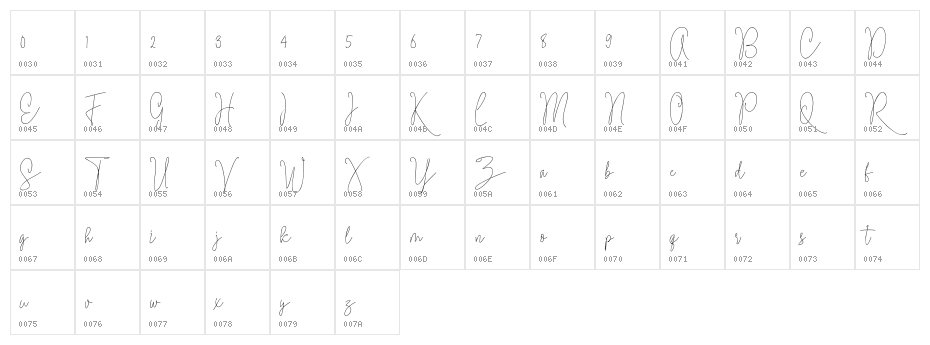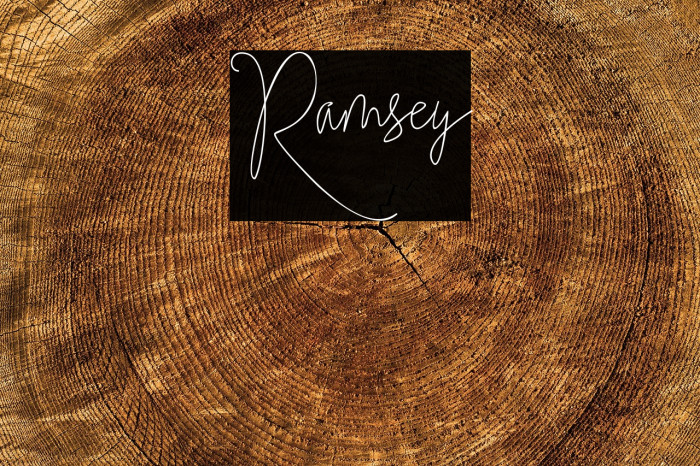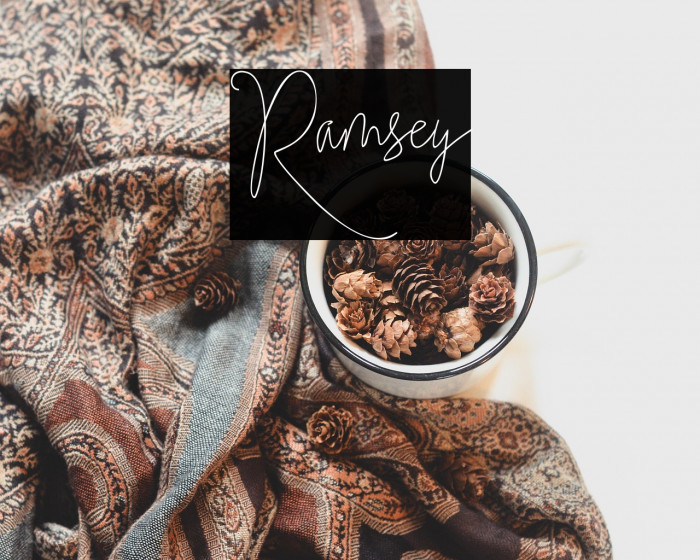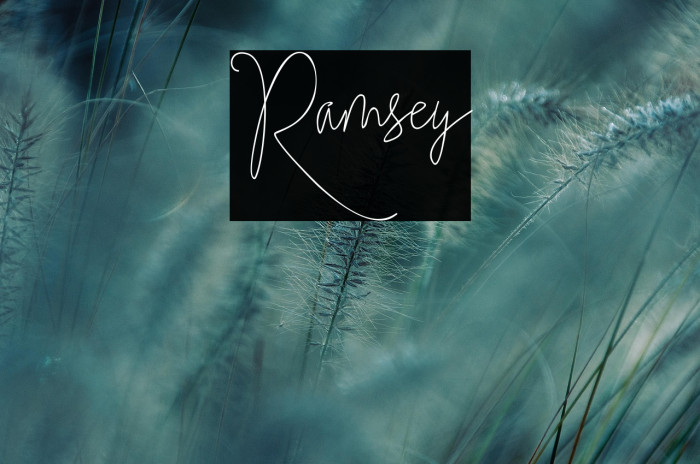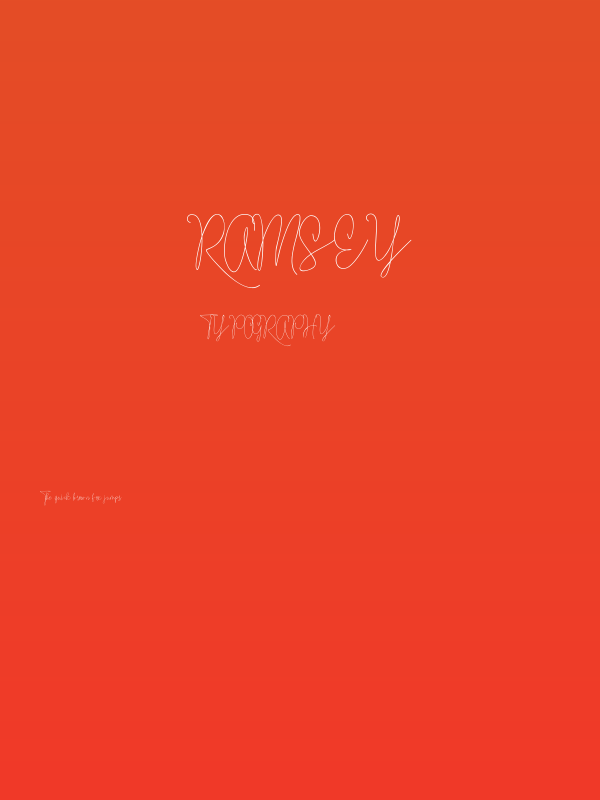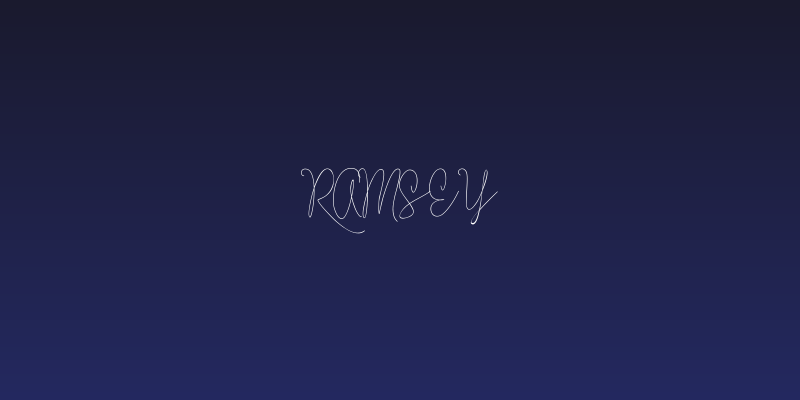
Ramsey Font
| Stile generale | Elegant |
| Caso d'uso | Logos, Invitations, Decorative text |
| Progetti proposti | Perfect for wedding invitations, elegant branding, personal stationery, and decorative quotes. |